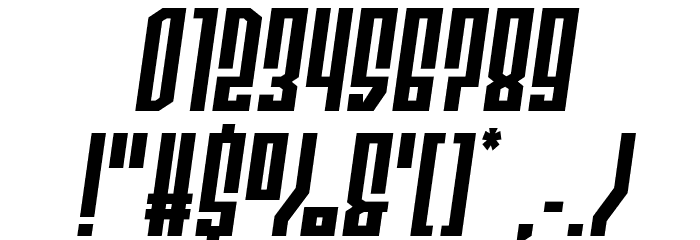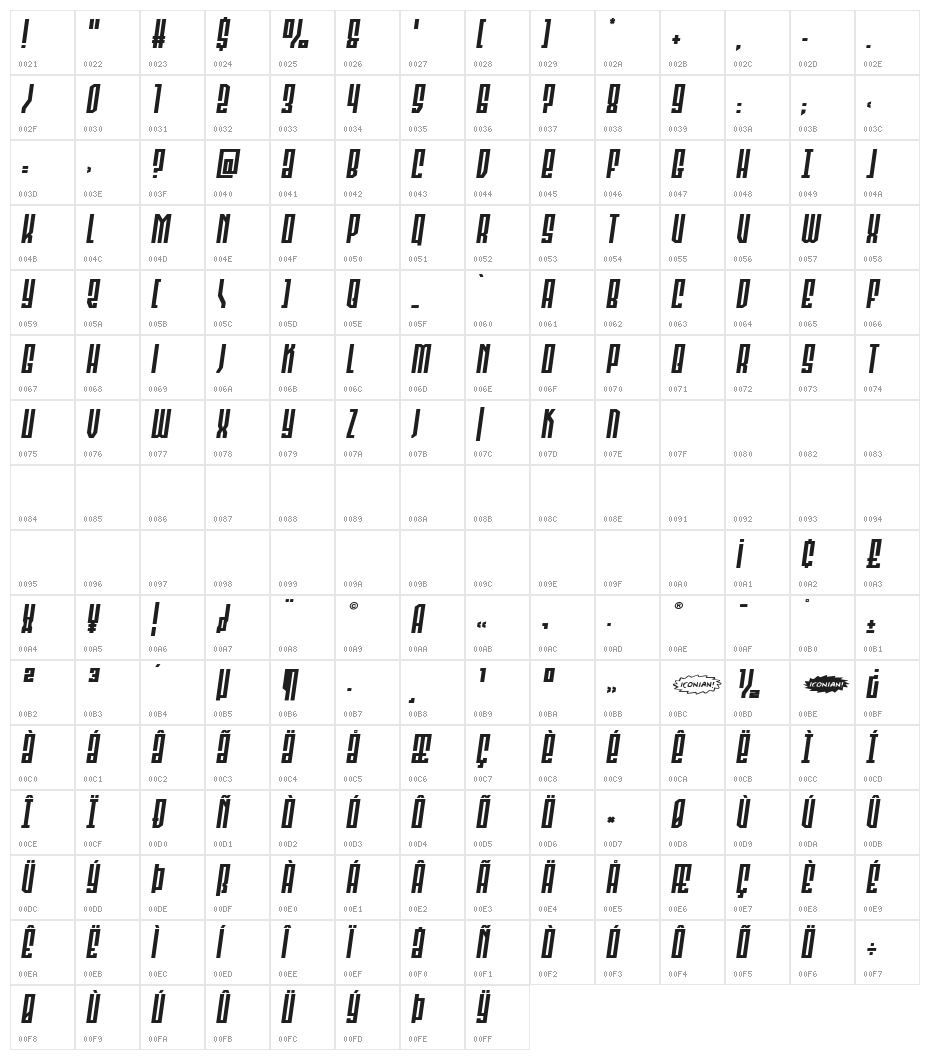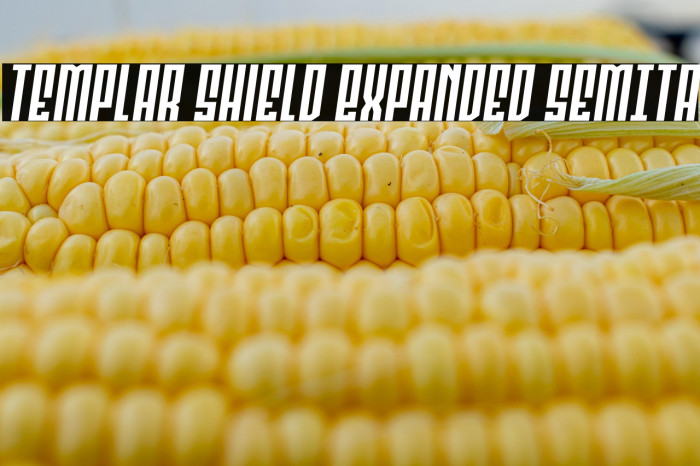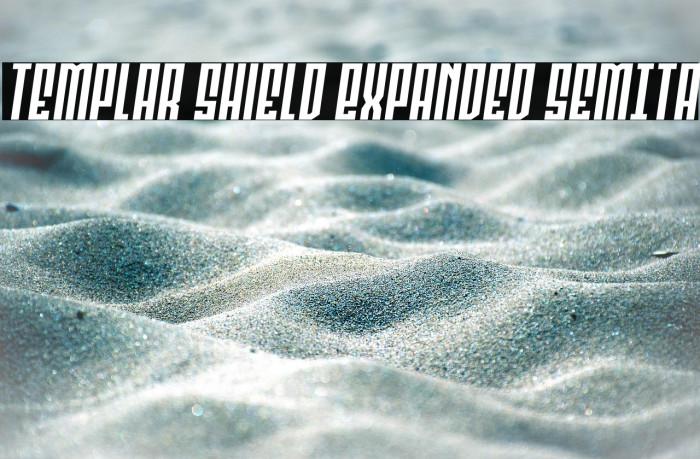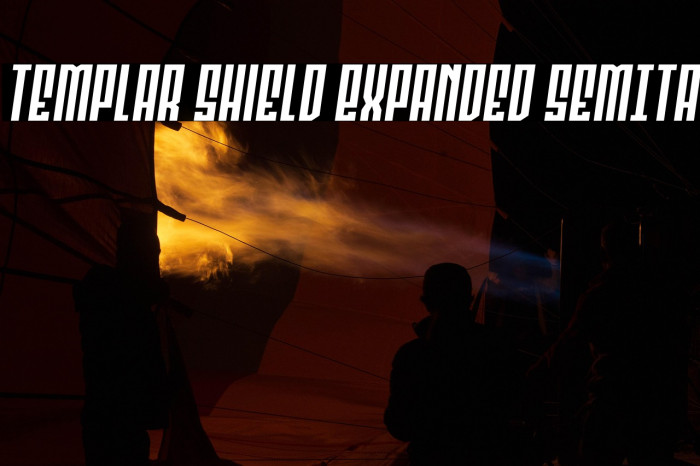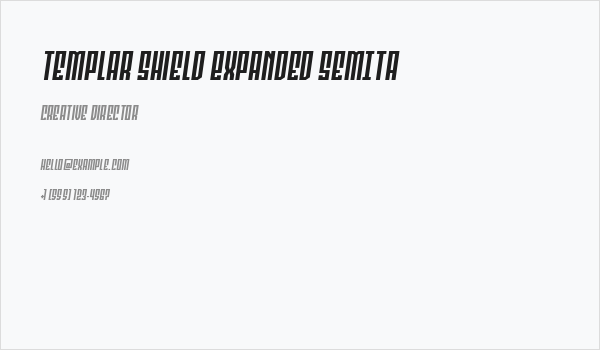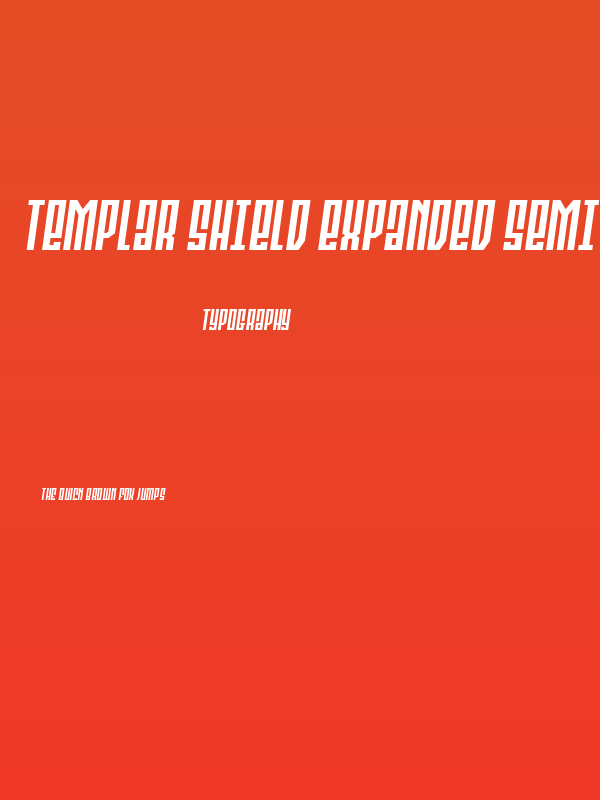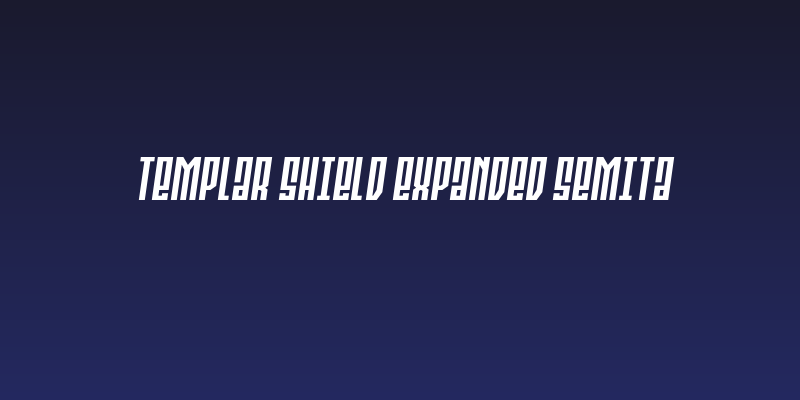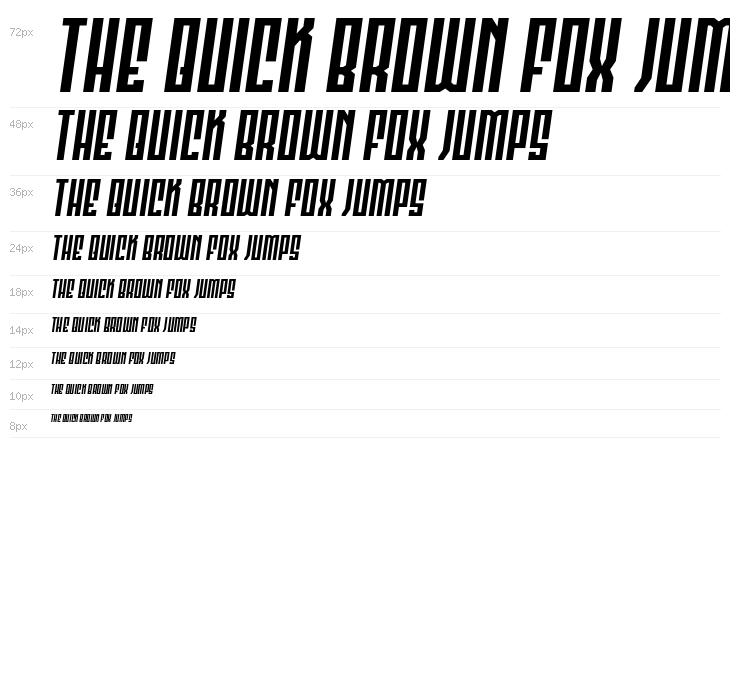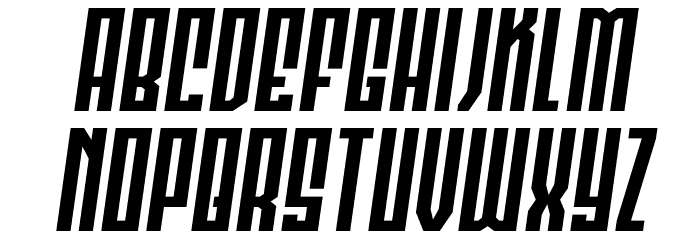
Templar Shield Expanded SemIta Font
Templar Shield Expanded SemIta Description
This font features a bold and dynamic design with a distinctly angular and geometric style. The characters are sharply defined with a consistent slant, giving them a sense of motion and energy. The uppercase and lowercase letters maintain a uniform width, contributing to a cohesive appearance. The numerals and special characters follow the same stylistic cues, ensuring a harmonious look across all text elements. The expanded width of the characters provides a strong visual impact, making it suitable for attention-grabbing headlines and titles.
| Proposed Projects | Ideal for sports branding, action movie posters, and dynamic advertising campaigns. |